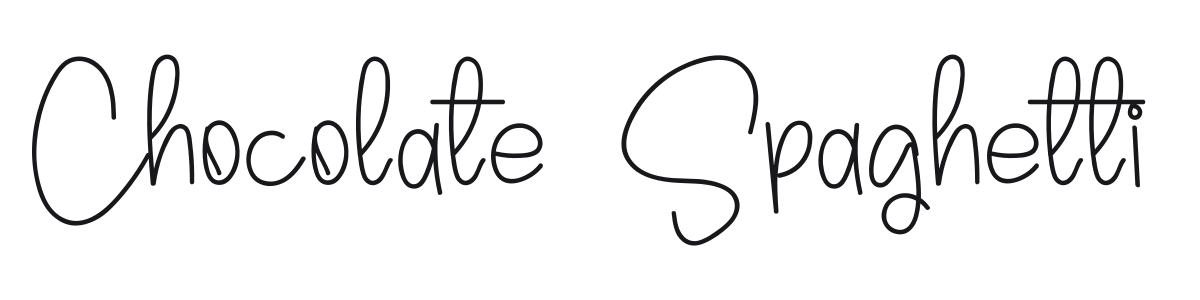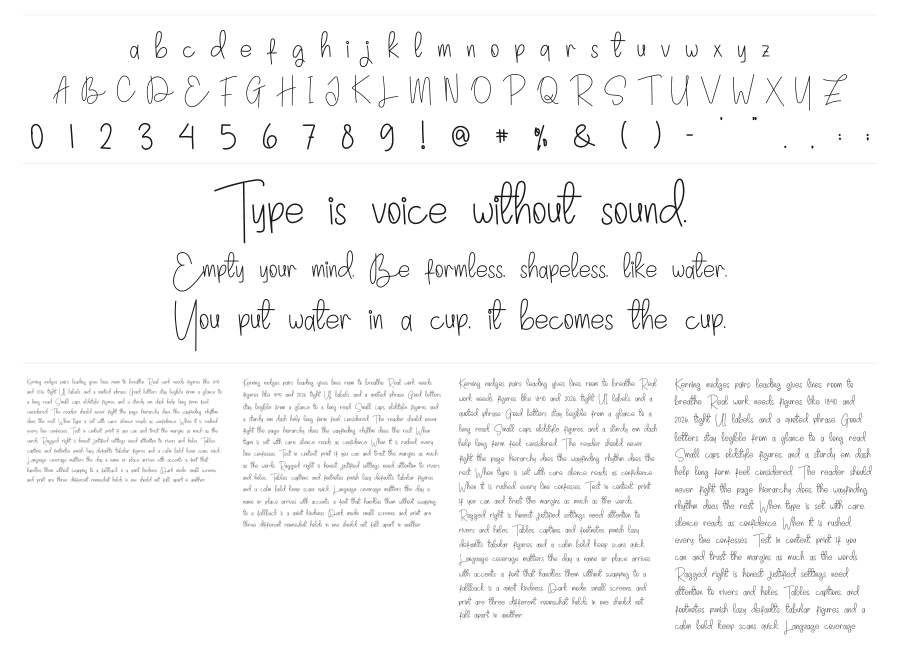
Chocolate Spaghetti
Chocolate Spaghetti is a casual handwritten script with thin, flowing strokes and a natural connected rhythm. Rounded looping forms and a relaxed baseline give it a genuine pen-written quality that feels warm and approachable. It works well at headline sizes for branding, packaging, and social content with a personal touch.